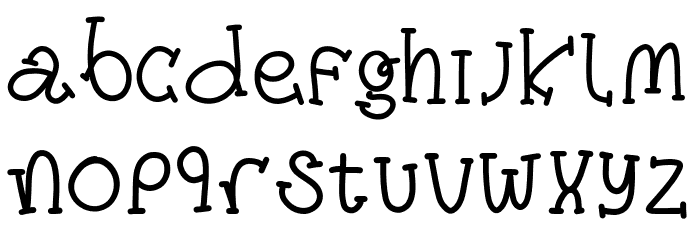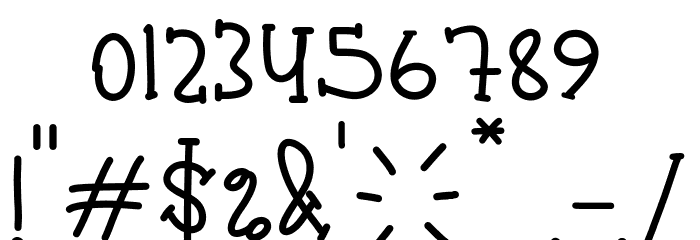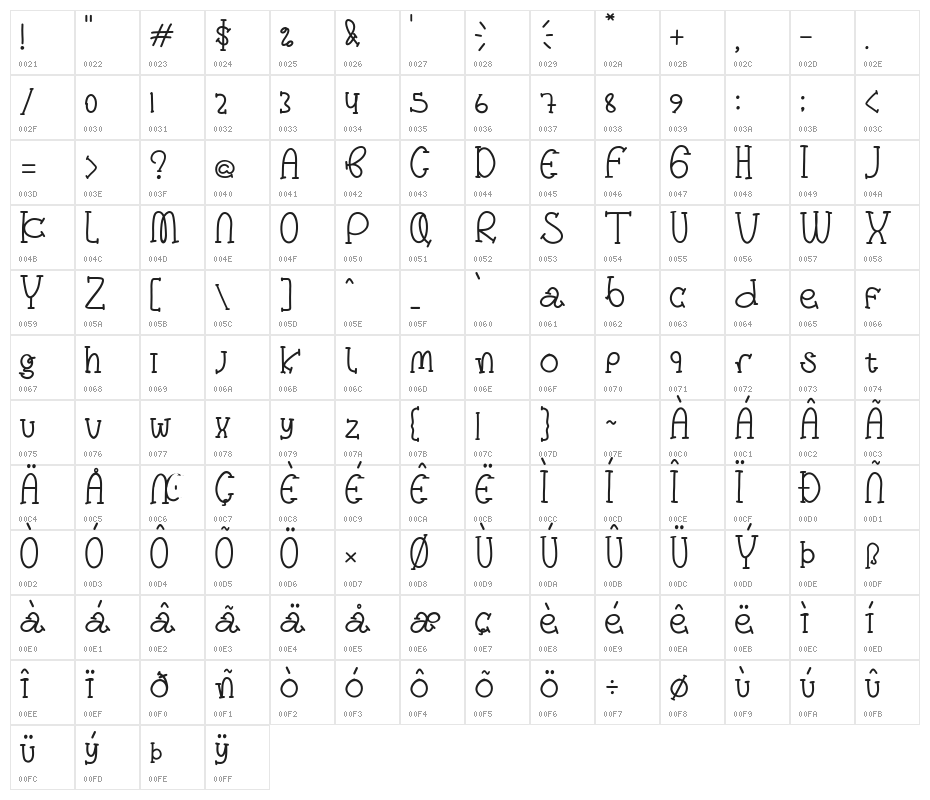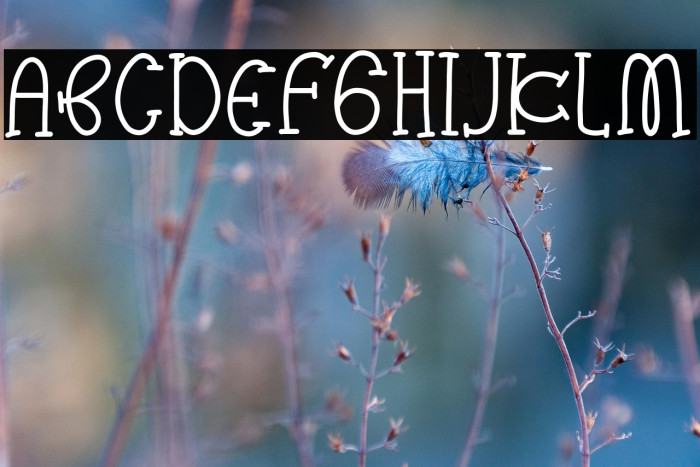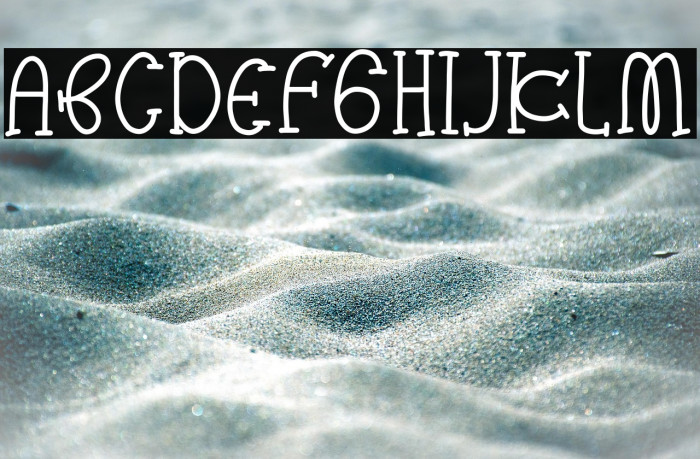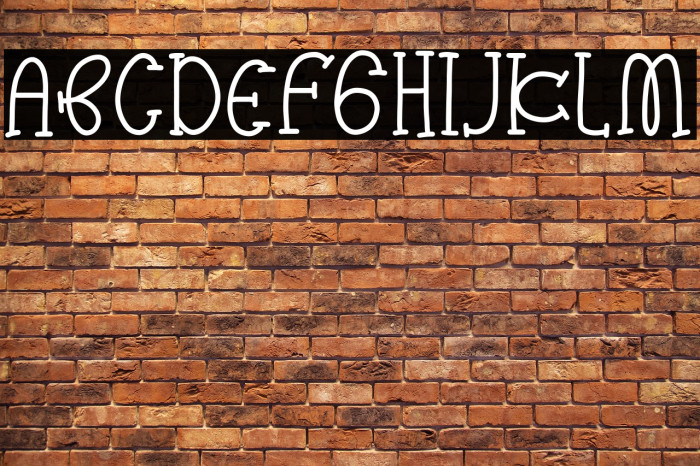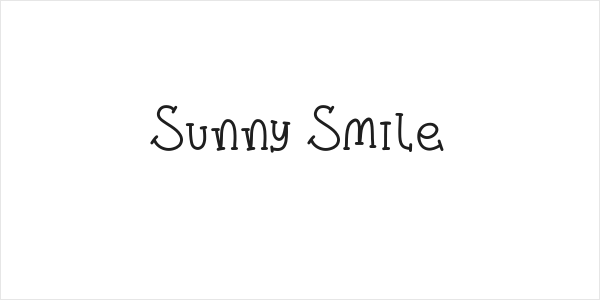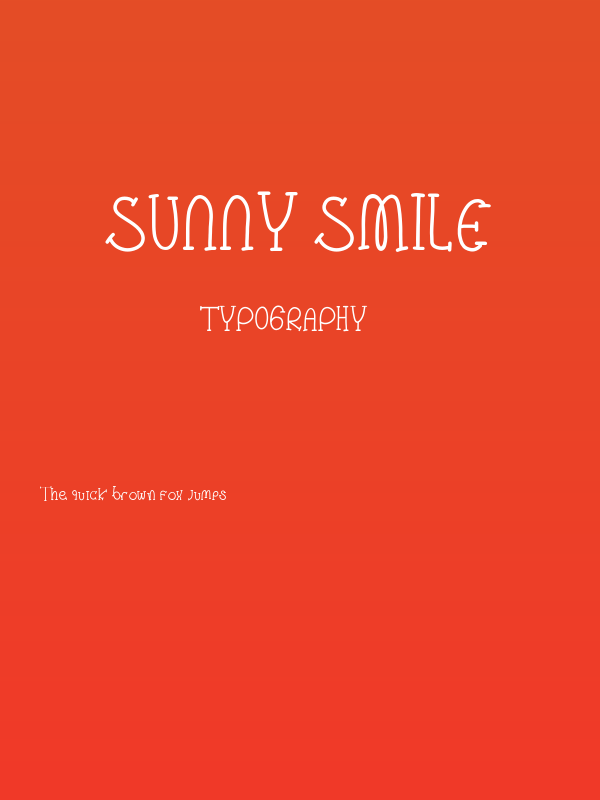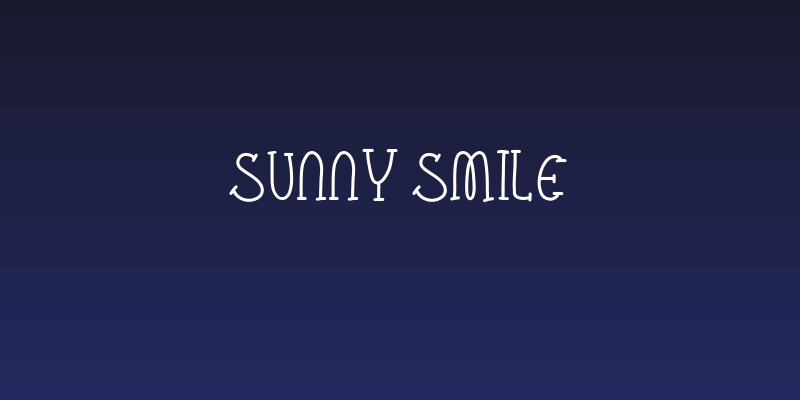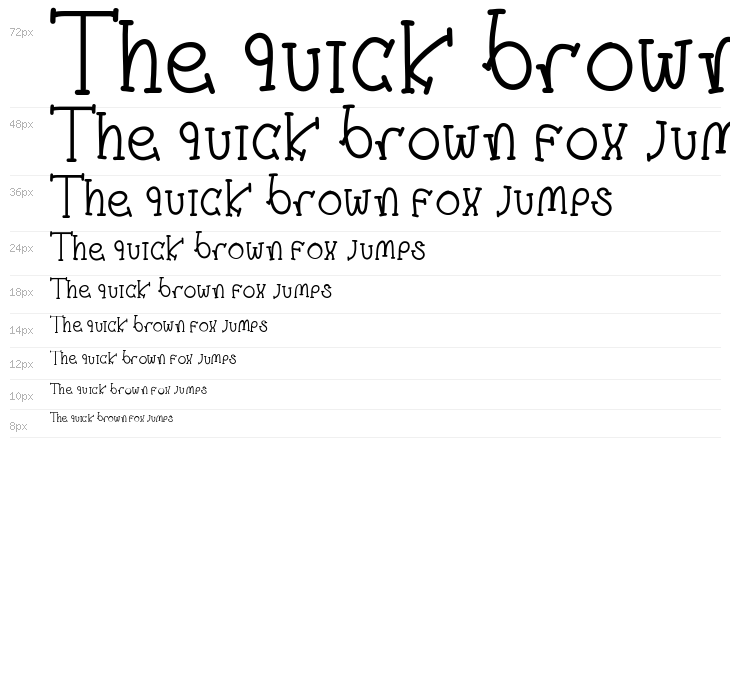
Sunny Smile Font
This playful and whimsical font features a hand-drawn aesthetic with a casual, friendly vibe. The letters are slightly irregular, giving it a charming, informal look. The strokes are consistent in weight, providing a balanced appearance. The characters have a rounded, soft quality, which adds to the approachable feel. This font is perfect for projects that require a touch of fun and creativity, such as children's books, playful branding, or casual invitations. The numerals and special characters maintain the same lively style, ensuring a cohesive look across all text elements.
A playful, hand-drawn font with a whimsical and friendly vibe.
- Font: Sunny Smile
- Proposed Projects: Ideal for children's books, playful branding, casual invitations, and creative projects.